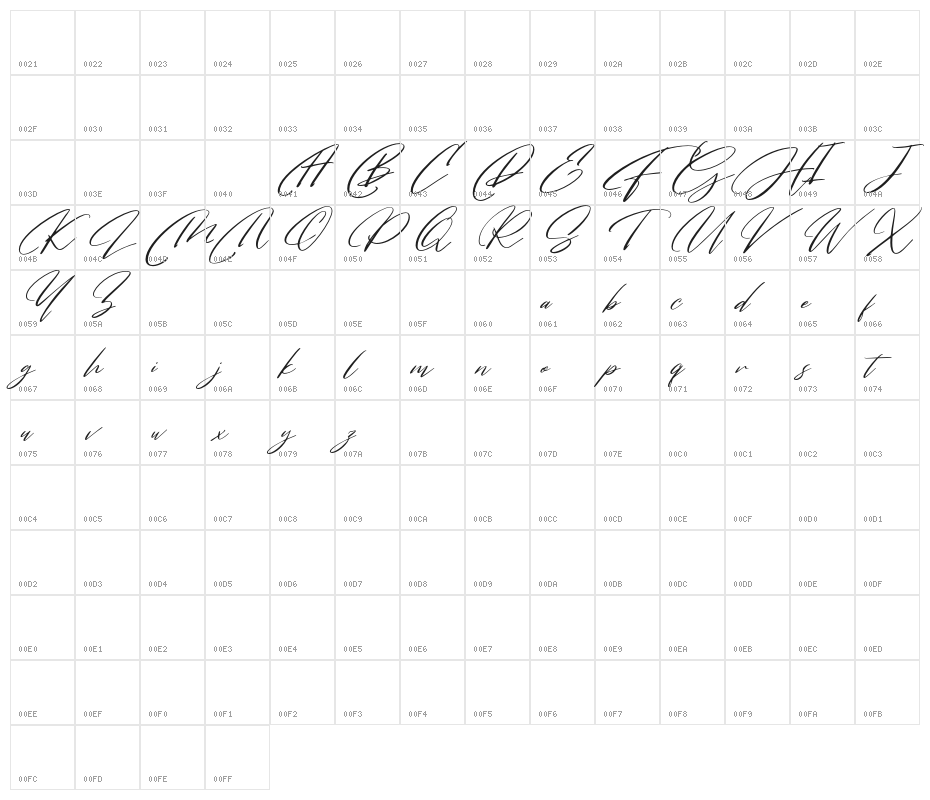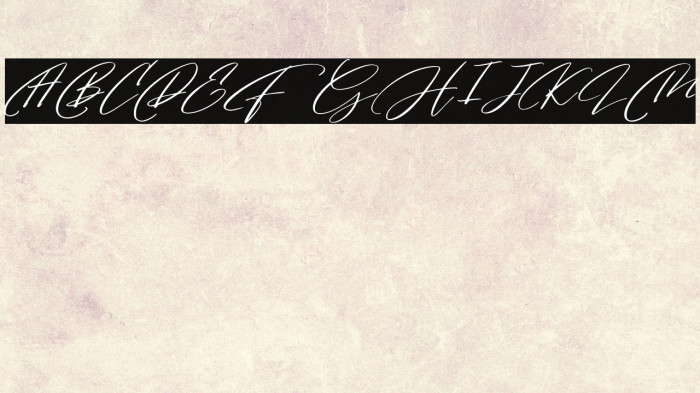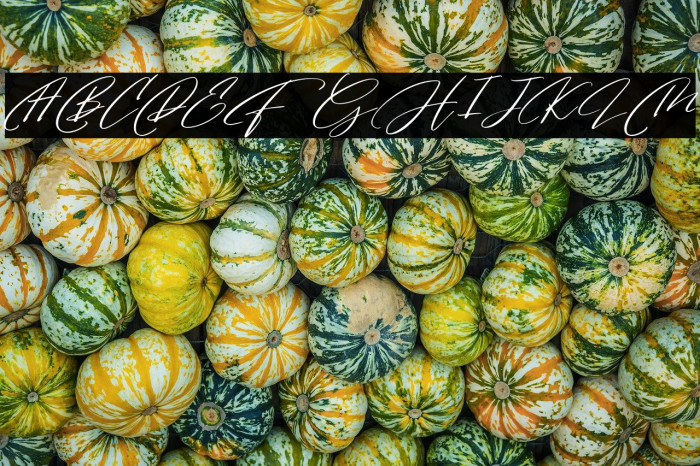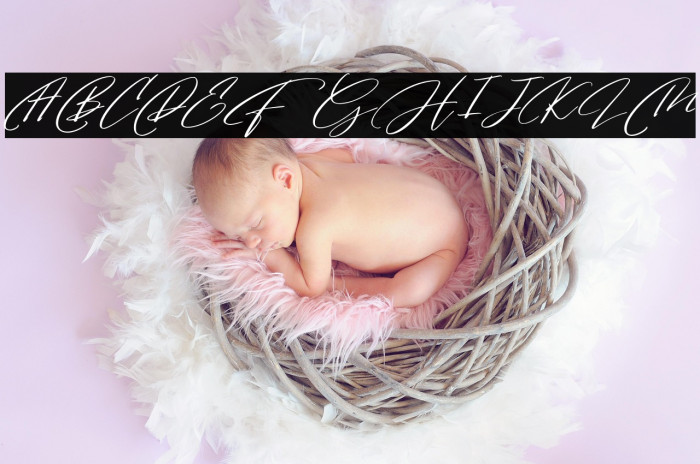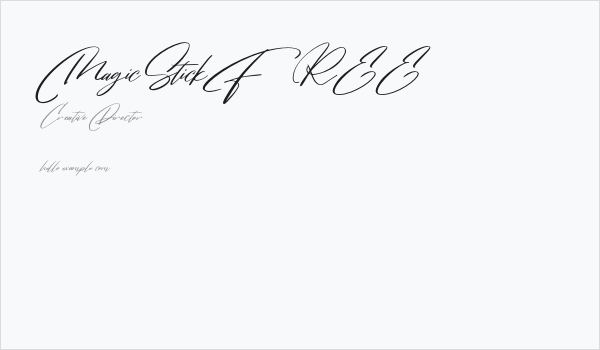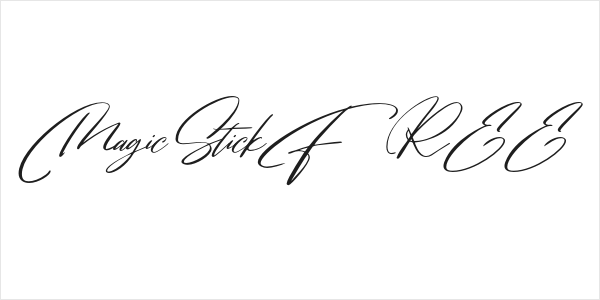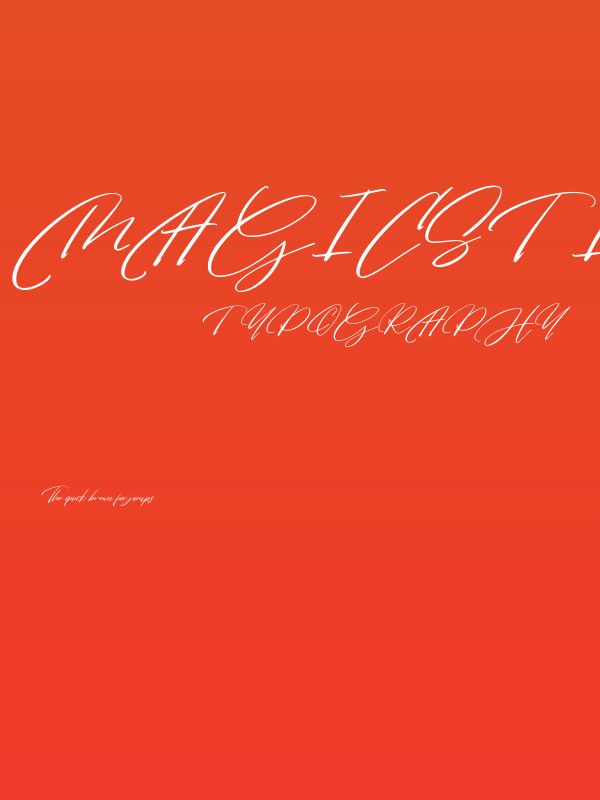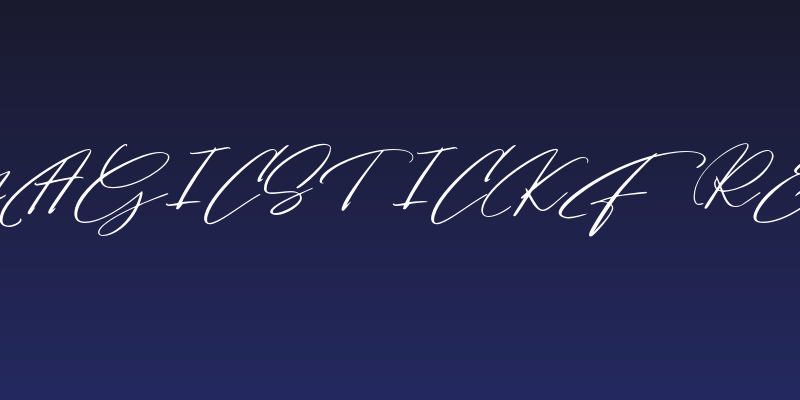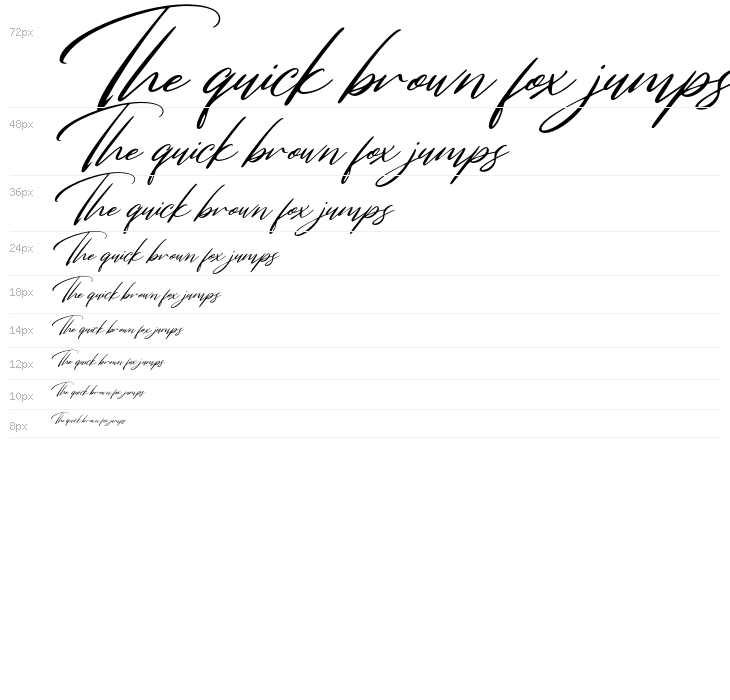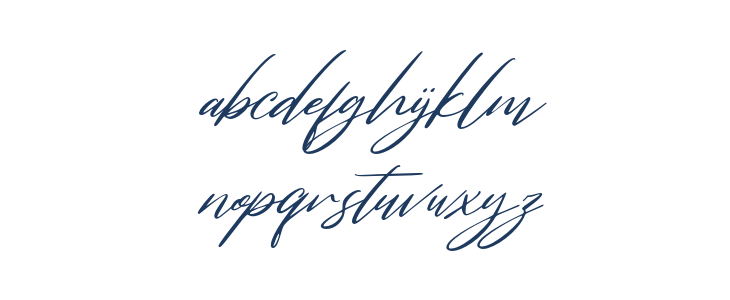
MagicStickFREE Font
MagicStickFREE Description
This elegant script font features flowing, interconnected letters that mimic the fluidity of handwriting. The uppercase letters are gracefully elongated with sweeping curves, while the lowercase letters maintain a consistent rhythm and balance. The font exhibits a natural, organic feel with its varied stroke thickness, adding a touch of sophistication and charm. Its cursive style is both expressive and legible, making it suitable for a variety of creative applications. The overall design is dynamic and lively, capturing the essence of personal handwriting with a modern twist.